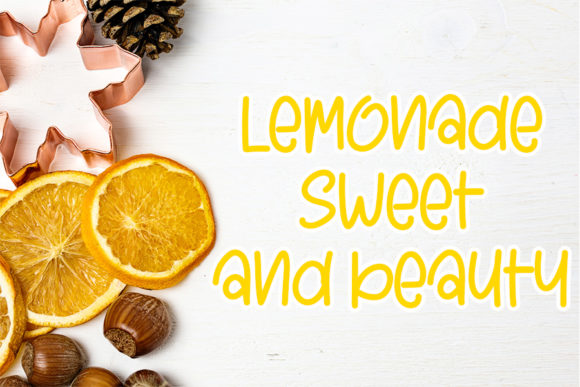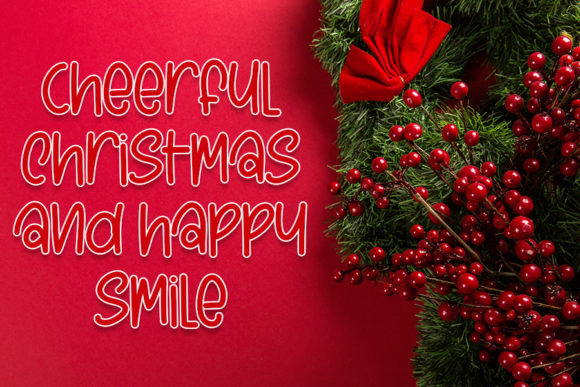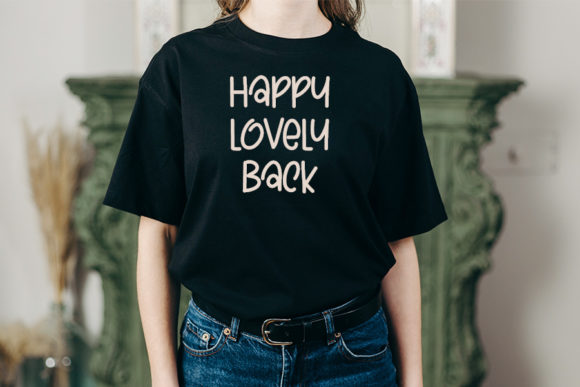
Introduction to Planet Santa Font
Do you remember the magical moment when you first started planning your holiday party or writing your Christmas letters to loved ones? The excitement and creativity that comes with it is truly unmatched. This time of year is perfect for unleashing your imagination and bringing your festive ideas to life with the right design resources.
One such design treasure is the Planet Santa Font, a natural and charming handwritten font that’s sure to become your go-to for all your holiday projects. Its friendly and simple nature makes it an ideal choice for creating high-quality, eye-catching designs that shine with a personal touch.
Key Features of Planet Santa Font
- Unique and festive design, perfect for creative projects and holiday-themed designs.
Honest Review: Planet Santa Font
As a designer, I’m always on the lookout for high-quality design resources to elevate my creative projects. The Planet Santa Font is one such find that caught my attention, and I’m excited to share my honest review.
Here are the aspects that work well for this font:
- ✨ Beautifully crafted Christmas-themed characters with a unique style.
- ✨ Great for creating festive graphics, labels, and other design elements.
- ⚠️ The font is specifically designed for Christmas-themed projects, so it may not be suitable for other types of designs.
- ⚠️ Some characters may not have transparent backgrounds, which can limit their versatility.
Overall, I think the Planet Santa Font is a great addition to any designer’s toolkit, especially during the holiday season. While it has its limitations, its unique style and ease of use make it a valuable resource for creating high-quality design elements.
Tips for Getting the Most Out of the Planet Santa Font
For the best results, use the Planet Santa Font in combination with other festive design elements, such as holly leaves and snowflakes. Experiment with different font sizes and colors to add depth and visual interest to your design.
Common Use Cases for the Planet Santa Font
The Planet Santa Font is perfect for holiday-themed designs, such as Christmas cards, gift tags, and party invitations. It can also be used in designs for New Year’s Eve celebrations and winter-themed events.
What is the recommended size for using the Planet Santa Font in a design project?
The recommended size for using the Planet Santa Font depends on the specific design project. However, as a general rule, it’s best to use the font at a size between 12pt to 24pt for body text and 48pt to 72pt for headings. This ensures optimal readability and visual impact in your design.